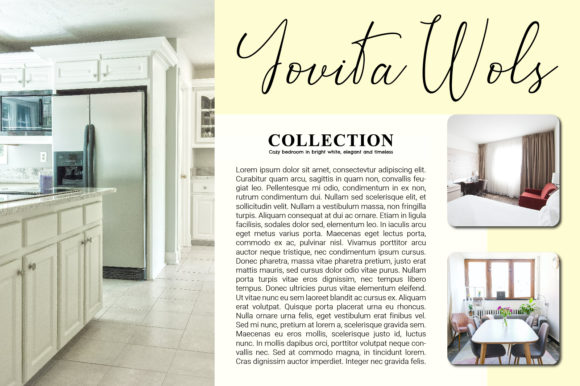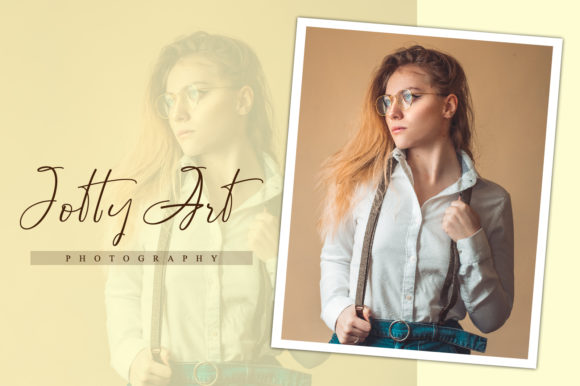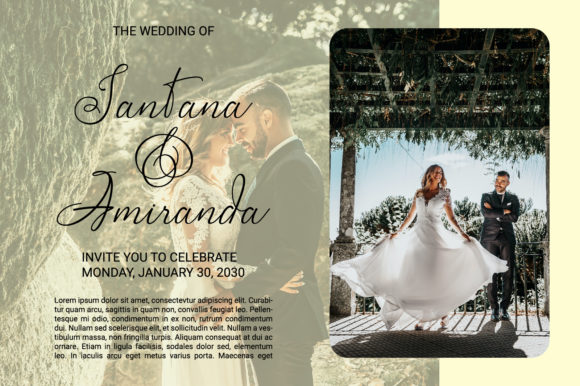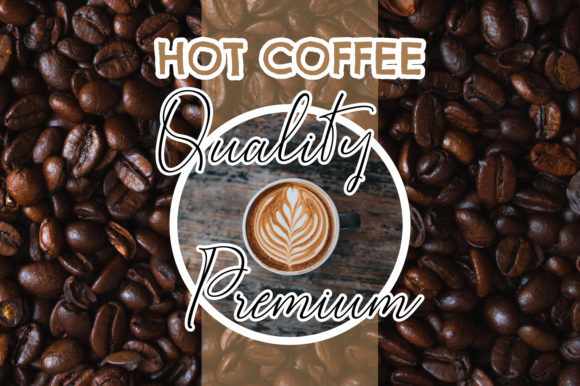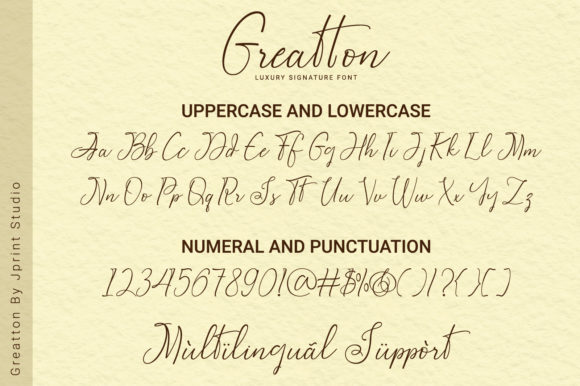
Introducing Greatton Font: Elevate Your Designs with Elegance
Greatton Font is a beautiful light handwritten font that has been making waves in the design community with its unique feel and stunning impact. This gorgeous font is perfect for designers and crafters looking to add a touch of luxury to their projects. Whether you’re working on a branding campaign, a wedding invitation, or a packaging design, Greatton Font is sure to make your designs shine.
The Unique Characteristics of Greatton Font
Greatton Font boasts a distinctive light handwritten style that exudes elegance and sophistication. Its unique feel is characterized by delicate strokes, subtle curves, and a refined aesthetic that sets it apart from other fonts. This font is designed to add a touch of luxury to any design project, making it perfect for high-end branding, packaging, and marketing materials.
Why Designers and Crafters Love Greatton Font
Designers and crafters alike are drawn to Greatton Font for its versatility and impact. Here are just a few reasons why:
- Elegant and Sophisticated: Greatton Font adds a touch of luxury to any design project, making it perfect for high-end branding and marketing materials.
- Unique and Memorable: The font’s distinctive style ensures that your designs will stand out from the crowd and leave a lasting impression.
- Versatile: Greatton Font can be used for a wide range of design projects, from wedding invitations and packaging to branding and advertising.
- Easy to Read: Despite its elegant and refined aesthetic, Greatton Font is surprisingly easy to read, making it perfect for body text and headlines.
How to Use Greatton Font in Your Designs
Using Greatton Font in your designs is easy! Here are a few tips to get you started:
- Pair it with Bold Fonts: Greatton Font pairs perfectly with bold fonts, creating a striking contrast that’s sure to grab attention.
- Use it for Headlines and Titles: Greatton Font is perfect for headlines and titles, adding a touch of luxury and sophistication to your designs.
- Experiment with Colors: Greatton Font looks stunning in a range of colors, from metallic gold and silver to rich jewel tones.
Tips and Tricks for Getting the Most Out of Greatton Font
Here are a few tips and tricks for getting the most out of Greatton Font:
- Pay Attention to Kerning: As with any font, kerning is crucial to ensuring that Greatton Font looks its best. Take the time to adjust the kerning to create a smooth and polished look.
- Use it in Combination with Images: Greatton Font looks stunning in combination with images, particularly those with a vintage or distressed aesthetic.
- Don’t be Afraid to Experiment: Greatton Font is a versatile font that can be used in a wide range of design projects. Don’t be afraid to experiment and try new things!
Greatton Font is a beautiful light handwritten font that is sure to elevate your designs with its unique feel and stunning impact. With its elegant and sophisticated aesthetic, versatility, and ease of use, Greatton Font is perfect for designers and crafters looking to add a touch of luxury to their projects. Whether you’re working on a branding campaign, a wedding invitation, or a packaging design, Greatton Font is sure to make your designs shine.